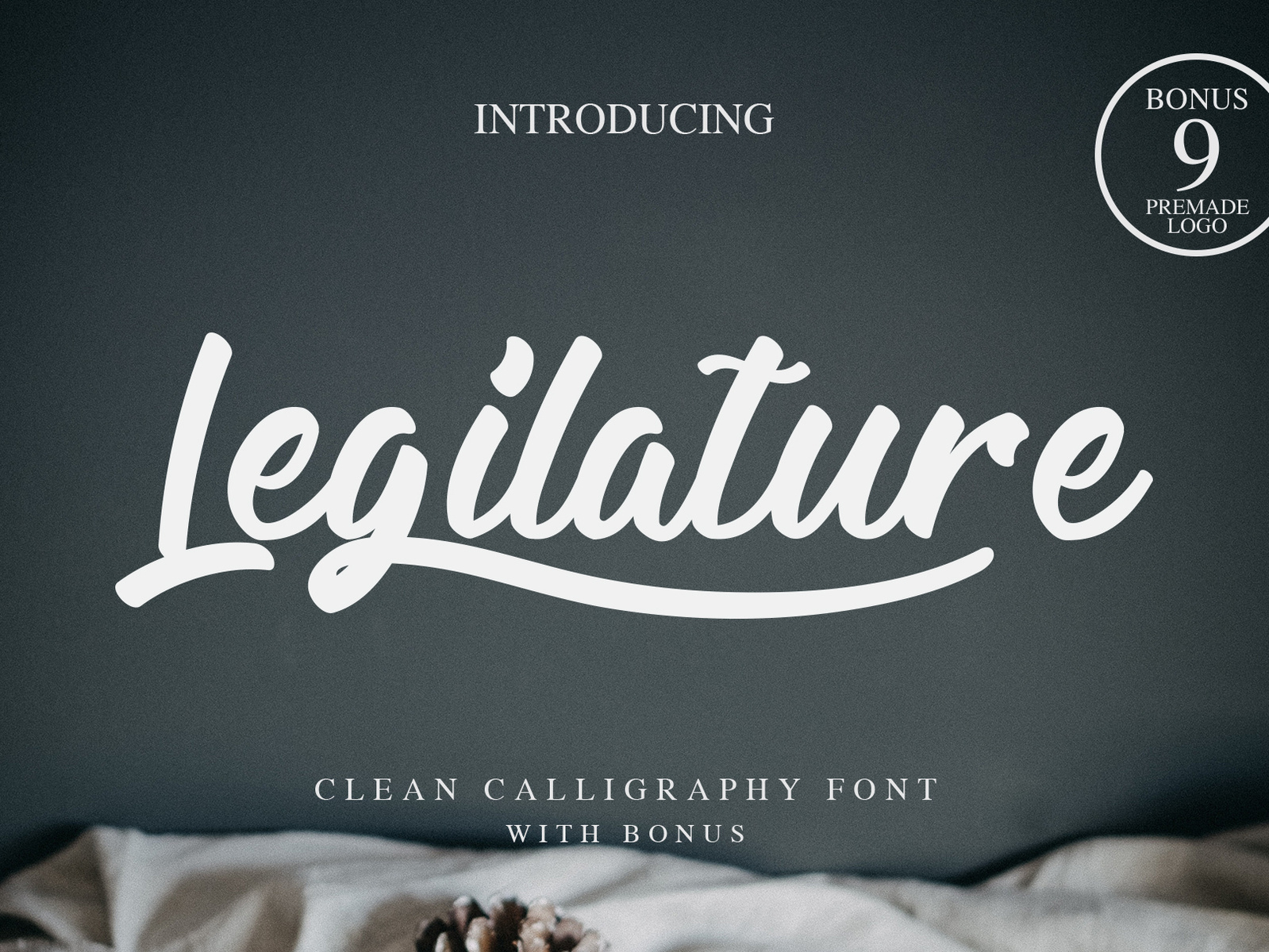
Legilature - a Modern Calligraphy Font
Legilature - a Modern Calligraphy Font is a font with a simple and modern calligraphy style, this font is great for your next creative projects such as quotes, album cover, business card, and many other design project.